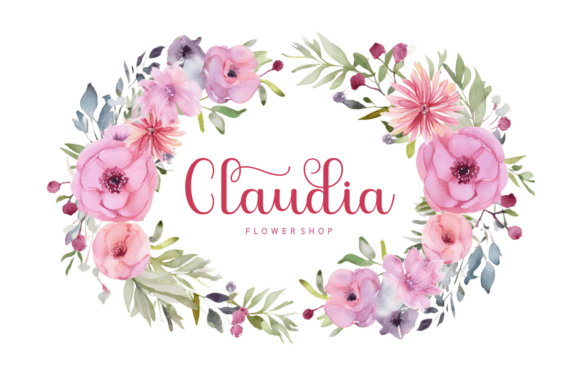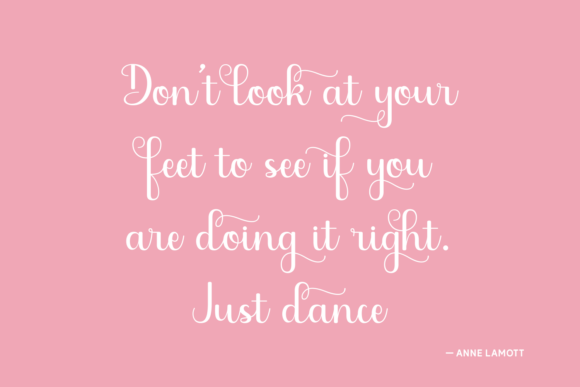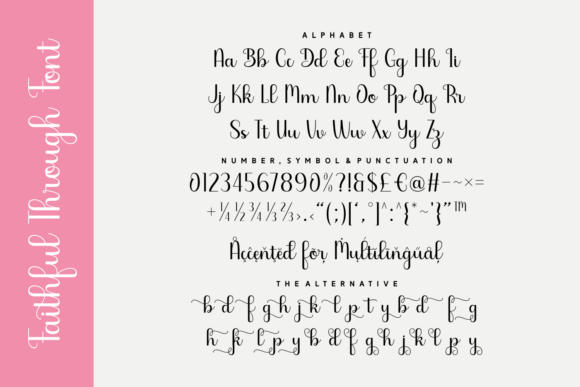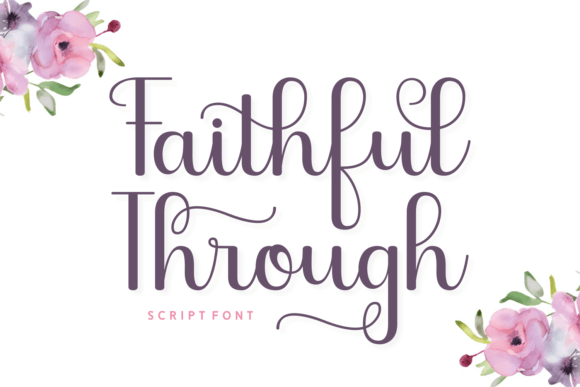
Faithful Through Font: Elevate Your Designs with Elegance and Charm
Are you a designer or crafter looking for a font that embodies the perfect blend of delicate charm and meaningful elegance? Look no further than Faithful Through, a beautifully flowing script font that is sure to elevate your designs to new heights. With its tall letterforms, light swashes, and gentle flourishes, Faithful Through is the ideal choice for inspirational quotes, wedding stationery, spiritual branding, and feminine designs.
A Refined Handwritten Feel
Faithful Through boasts a refined handwritten feel that adds warmth, hope, and sophistication to every project it touches. Its elegant letterforms are carefully crafted to convey a sense of refinement and poise, making it perfect for designs that require a touch of luxury and sophistication. Whether you’re creating wedding invitations, branding materials, or inspirational quotes, Faithful Through is sure to bring a level of elegance and refinement that will leave a lasting impression.
Ideal for Inspirational Quotes and Spiritual Branding
Faithful Through is particularly well-suited for inspirational quotes and spiritual branding. Its delicate charm and meaningful elegance make it the perfect choice for conveying messages of hope, love, and faith. The font’s light swashes and gentle flourishes add a touch of whimsy and playfulness, making it ideal for designs that require a sense of movement and energy.
Perfect for Wedding Stationery and Feminine Designs
In addition to its use in inspirational quotes and spiritual branding, Faithful Through is also perfect for wedding stationery and feminine designs. Its elegant letterforms and refined handwritten feel make it an excellent choice for wedding invitations, save-the-date cards, and other wedding-related materials. The font’s delicate charm and meaningful elegance also make it well-suited for feminine designs, such as fashion branding, beauty packaging, and lifestyle blogs.
Key Features of Faithful Through Font
• Tall letterforms: Faithful Through’s tall letterforms give it a sense of elegance and refinement, making it perfect for designs that require a touch of sophistication.
• Light swashes: The font’s light swashes add a touch of whimsy and playfulness, making it ideal for designs that require a sense of movement and energy.
• Gentle flourishes: Faithful Through’s gentle flourishes add a touch of elegance and refinement, making it perfect for designs that require a sense of luxury and sophistication.
• Refined handwritten feel: The font’s refined handwritten feel gives it a sense of warmth and personality, making it perfect for designs that require a touch of humanity and emotion.
In conclusion, Faithful Through font is a beautifully flowing script font that is sure to elevate your designs to new heights. With its delicate charm, meaningful elegance, and refined handwritten feel, it’s the perfect choice for inspirational quotes, wedding stationery, spiritual branding, and feminine designs. Whether you’re a designer or crafter, Faithful Through is sure to bring a level of sophistication and elegance to your projects that will leave a lasting impression.